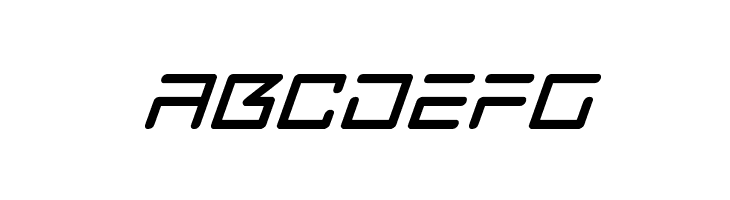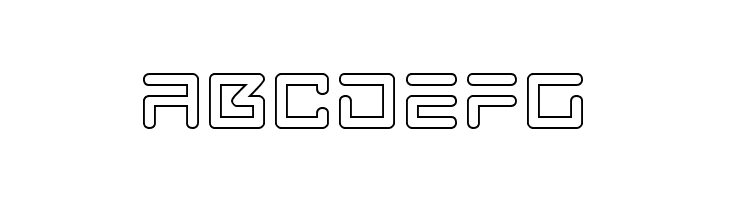
Tempest Apache Expanded Font
Iconian Fonts - Daniel Zadorozny - www.iconian.com
A futuristic and geometric font with bold, angular letterforms and expanded width.
Tempest Apache Expanded Italic Font
Iconian Fonts - Daniel Zadorozny - www.iconian.com
A futuristic, expanded italic font with a sleek, geometric design.
Tempest Apache Gradient Font
Iconian Fonts - Daniel Zadorozny - www.iconian.com
A futuristic, gradient-lined font with a digital, sci-fi aesthetic.
Tempest Apache Gradient Italic Font
Iconian Fonts - Daniel Zadorozny - www.iconian.com
A futuristic, italicized font with a gradient stripe effect, perfect for dynamic and modern designs.
Tempest Apache Halftone Font
Iconian Fonts - Daniel Zadorozny - www.iconian.com
A futuristic, geometric font with a halftone pattern and bold, angular design.
Tempest Apache Halftone Italic Font
Iconian Fonts - Daniel Zadorozny - www.iconian.com
A futuristic, italicized font with a halftone effect and geometric design.
Tempest Apache Italic Font
Iconian Fonts - Daniel Zadorozny - www.iconian.com
A modern, angular font with a futuristic and dynamic design.
Tempest Apache Laser Font
Iconian Fonts - Daniel Zadorozny - www.iconian.com
A futuristic, geometric font with angular and sharp edges.
Tempest Apache Laser Italic Font
Iconian Fonts - Daniel Zadorozny - www.iconian.com
A futuristic, angular font with a slanted, italicized style.
Tempest Apache Leftalic Font
Iconian Fonts - Daniel Zadorozny - www.iconian.com
A futuristic, angular font with geometric shapes and consistent stroke width.
Tempest Apache Outline Font
Iconian Fonts - Daniel Zadorozny - www.iconian.com
A modern, geometric outline font with a futuristic and technical style.
Tempest Apache Outline Italic Font
Iconian Fonts - Daniel Zadorozny - www.iconian.com
A modern, geometric outline font with an italic slant and angular design.
Tempest Apache Semi-Italic Font
Iconian Fonts - Daniel Zadorozny - www.iconian.com
A modern, semi-italic font with geometric and angular characters.
Tempest Apache Super-Italic Font
Iconian Fonts - Daniel Zadorozny - www.iconian.com
A modern, italicized font with a sleek, angular design and a futuristic aesthetic.
Tempest Apache Title Font
Iconian Fonts - Daniel Zadorozny - www.iconian.com
A futuristic, geometric font with angular edges and a monospaced appearance.
Tempest Apache Title Italic Font
Iconian Fonts - Daniel Zadorozny - www.iconian.com
A futuristic, angular italic font with a dynamic and modern style.
Tempest-narrow Font
Font by Bree Gorton
A modern, narrow sans-serif font with clean lines and balanced spacing.
Tempestua Font
A bold, high-contrast serif font with dynamic, elegant strokes.
Temphis Brick Font